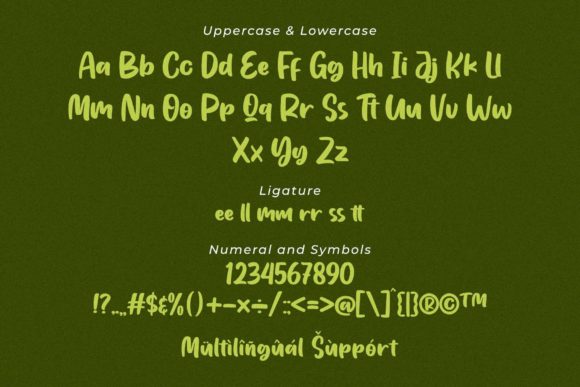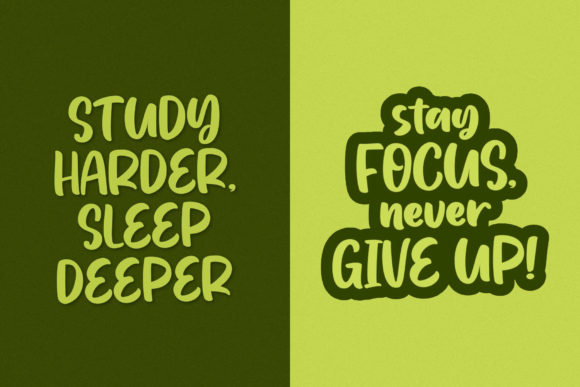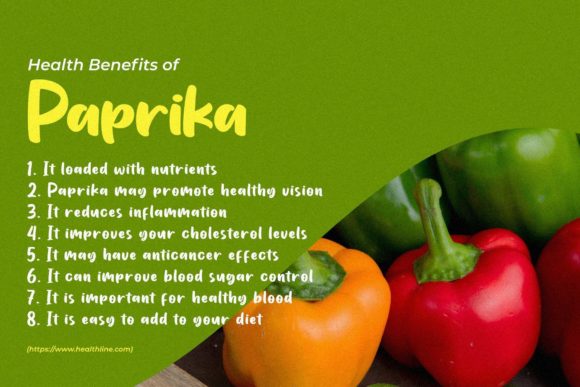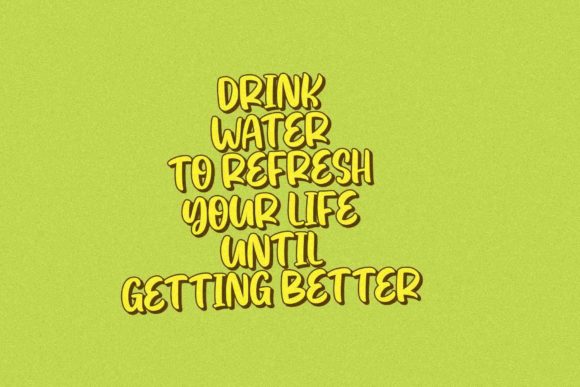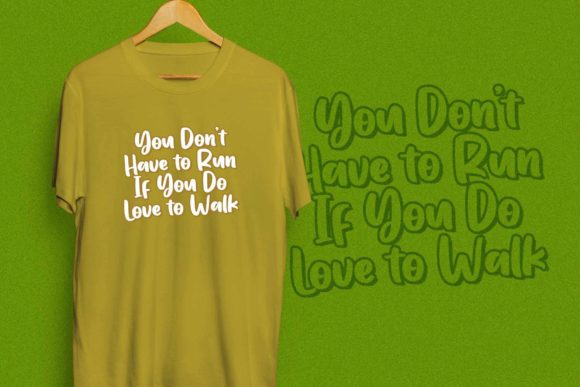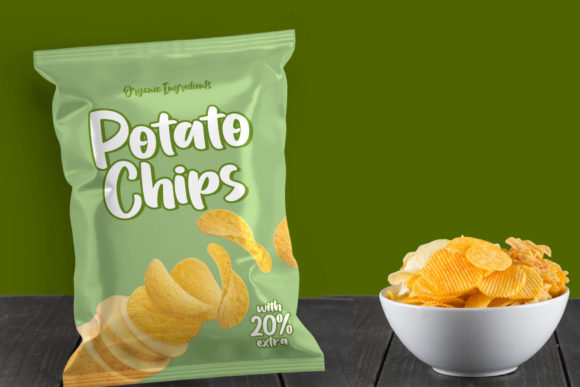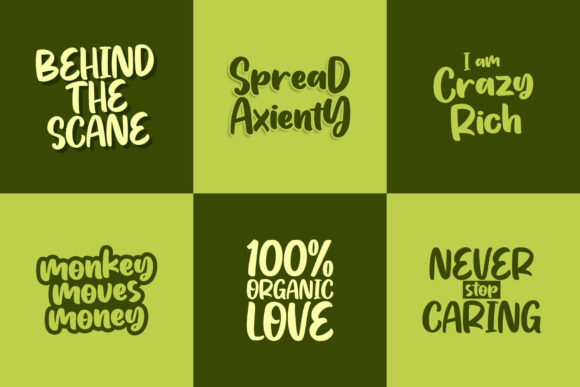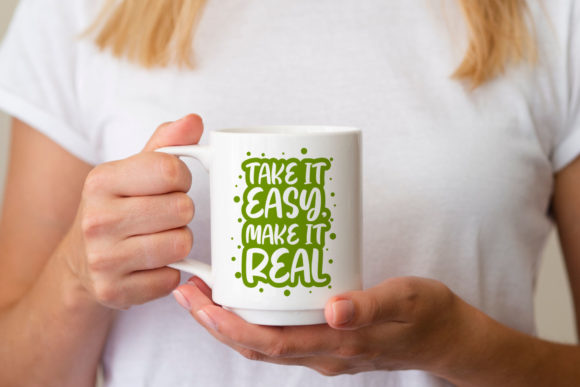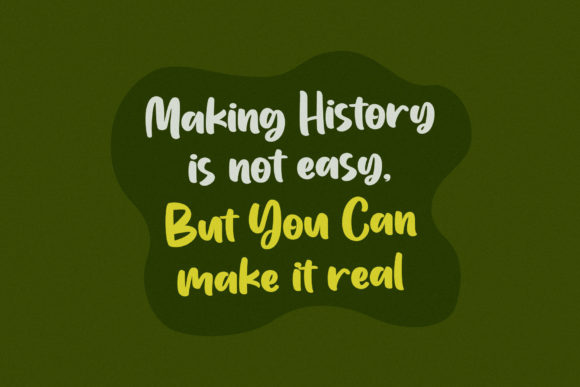
Creamy Matcha Font
About Creamy Matcha Font
Creamy Matcha is a delightful and friendly handwritten font that exudes a sweet and natural charm. With its unique style, this font seamlessly complements a diverse range of designs, offering limitless creative possibilities limited only by your imagination. Its inherent sweetness and authenticity make it a perfect fit for a variety of projects, particularly well-suited for teenage activities or vibrant branding endeavors.
The natural and distinctive quality of Creamy Matcha adds a touch of character and personality to your designs. Its handwritten aesthetic brings a sense of warmth and approachability, making it an ideal choice for projects that aim to connect with a youthful audience. Whether used in creative endeavors, social media graphics, or branding initiatives, Creamy Matcha infuses a stylish and authentic flair that resonates with contemporary design trends.
This font’s versatility allows it to adapt effortlessly to various design contexts, offering a fresh and vibrant appeal. The playful yet stylish elements of Creamy Matcha make it an excellent choice for projects that seek to capture the energy and spirit of teenage activities. It becomes a dynamic tool for branding initiatives targeting a youthful audience, adding a touch of creativity and fun to the visual identity.
In essence, Creamy Matcha is more than just a font; it’s a design asset that injects sweetness, friendliness, and authenticity into your projects. Its natural and unique style opens up a world of creative opportunities, making it an excellent choice for designers looking to infuse a youthful and vibrant energy into their work. With Creamy Matcha, the possibilities are endless, and the result is a visually engaging and lively design that stands out with its sweet charm.